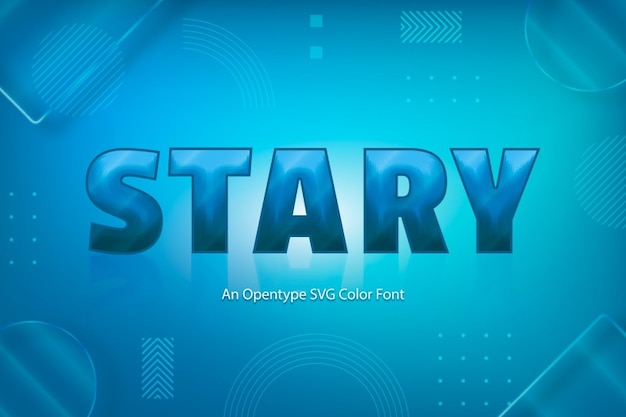
It's a geometric gem, blending simplicity with timeless appeal. Each letter stands bold and classic, crafted with clean lines and geometric finesse. It's a modern twist on a classic style, where simplicity speaks volumes. Stary delivers a strong, straightforward vibe that's both striking and effortlessly elegant.